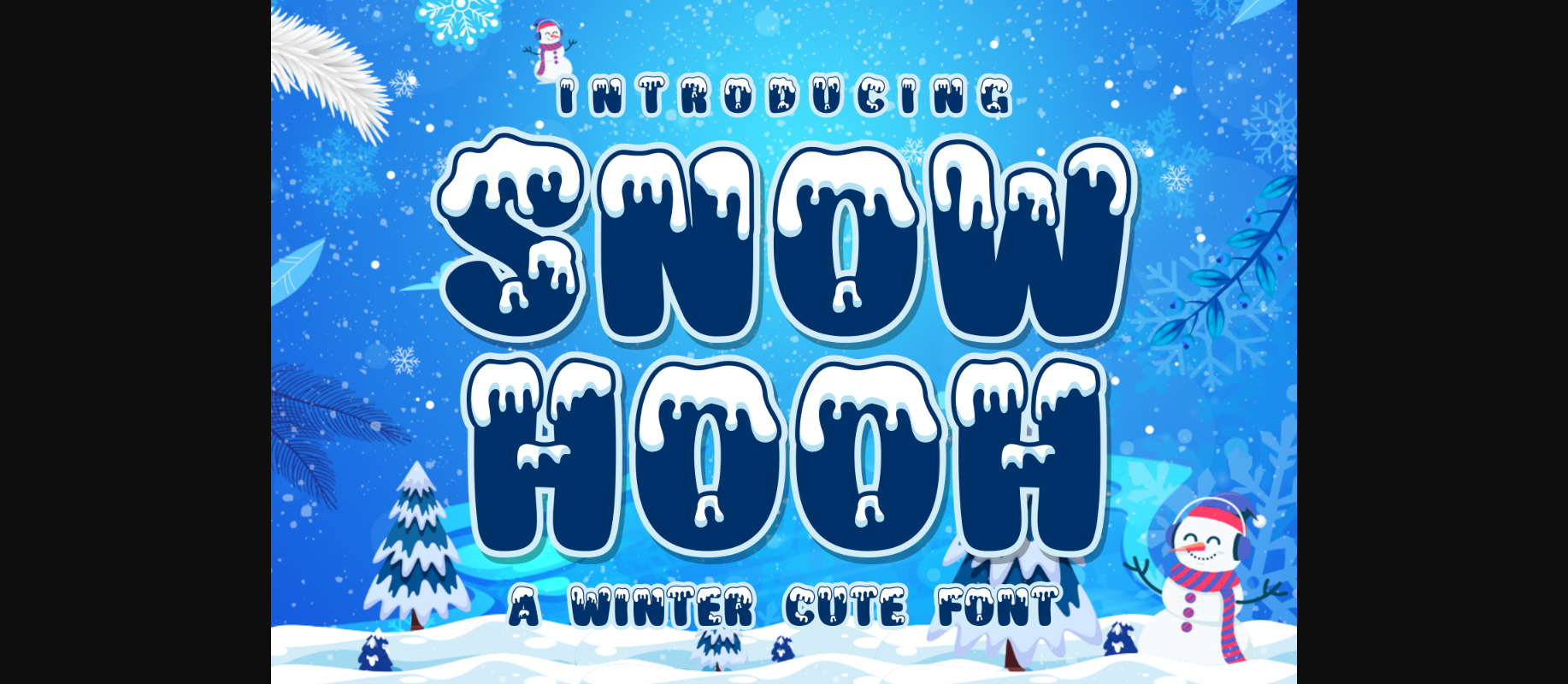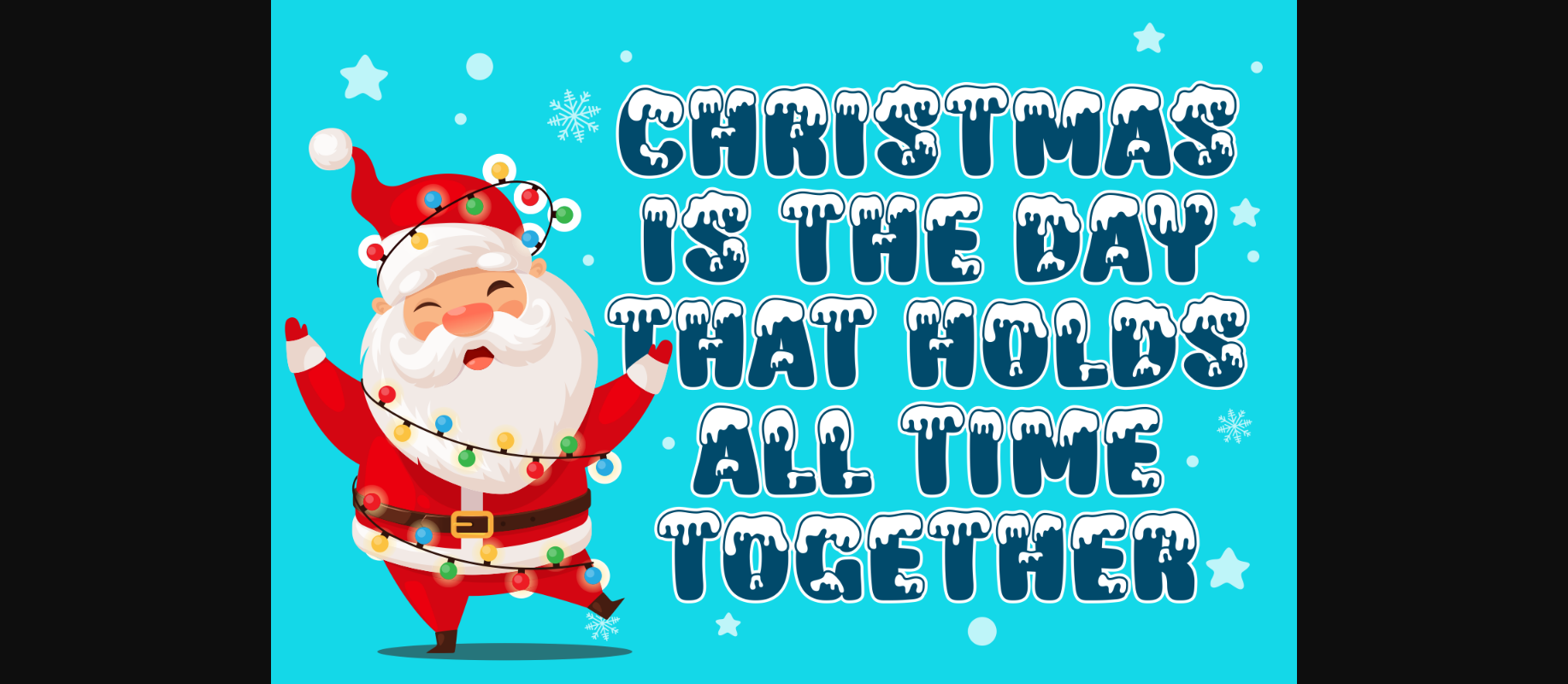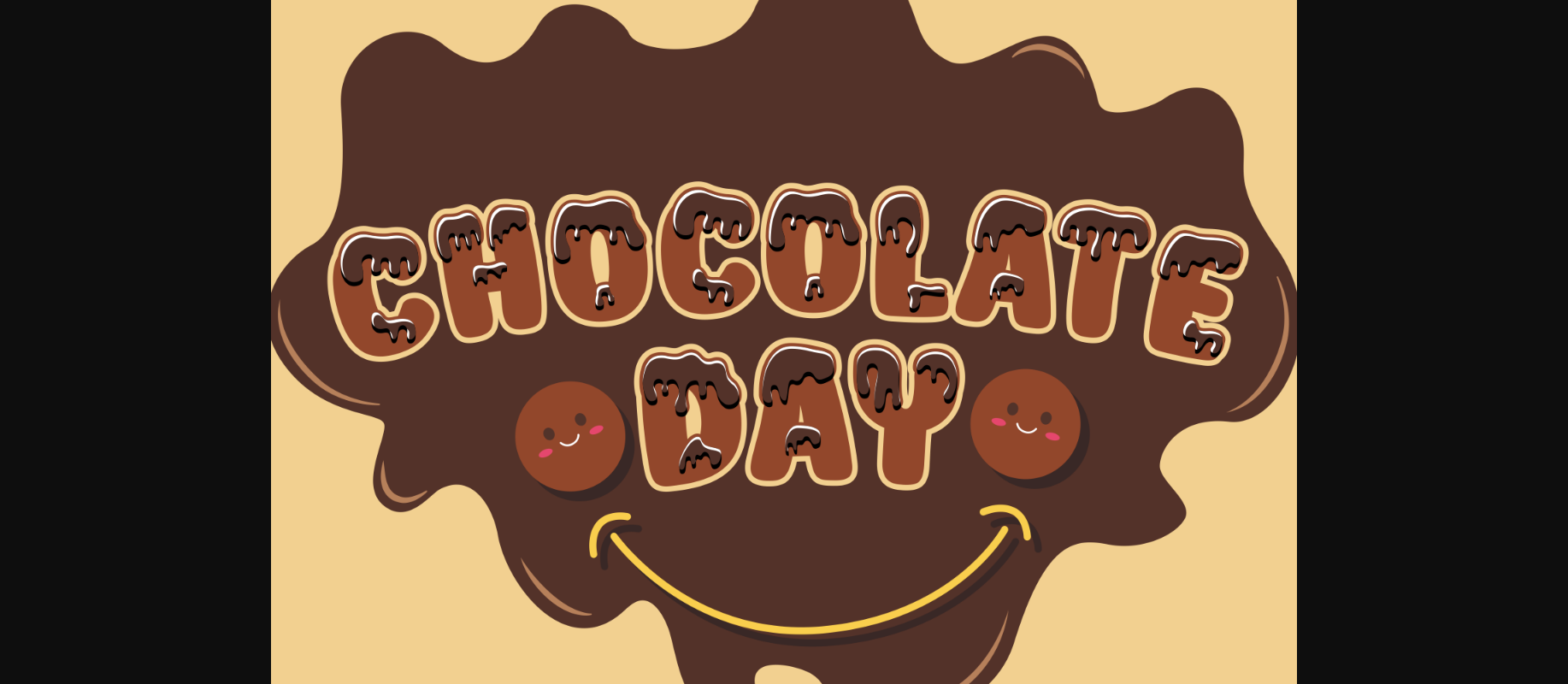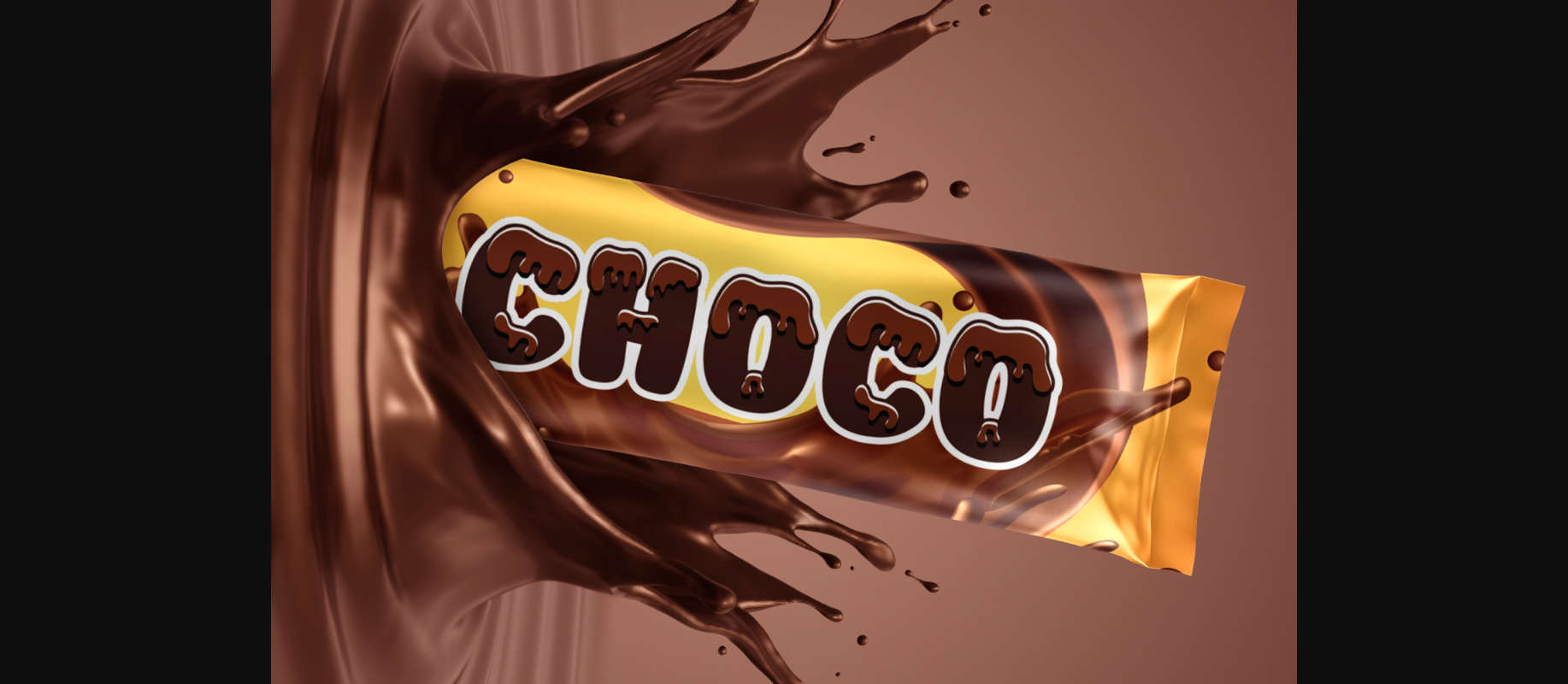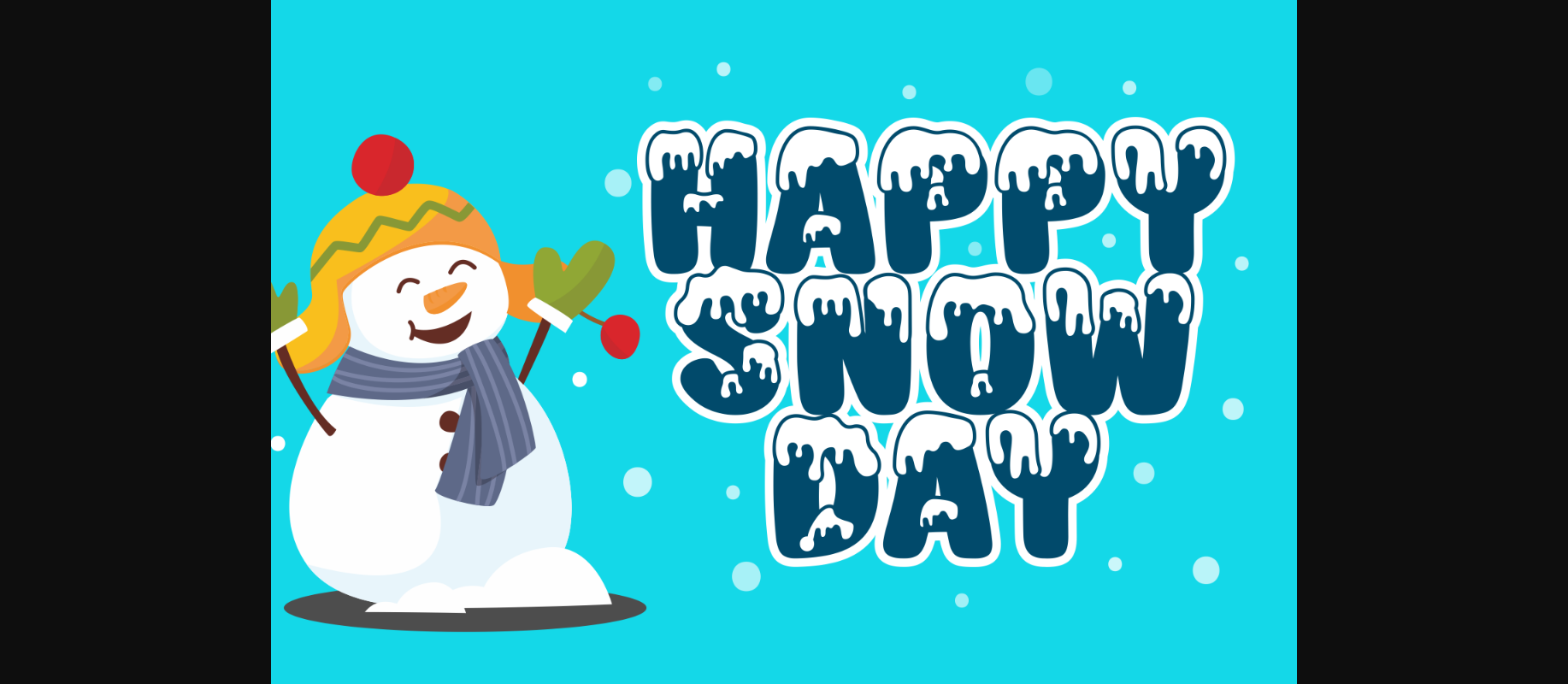
About Snow Hooh Font
Snow Hooh is a sweet and playful winter font that adds a touch of charm to your projects. With cute decorative snow on top of each letter, it brings a festive and whimsical feel to your designs. Perfect for creating a cozy winter atmosphere in your text, Snow Hooh is an adorable choice for holiday cards, invitations, and any project that needs a sprinkle of seasonal delight. Let your words sparkle with this delightful font that captures the magic of winter.